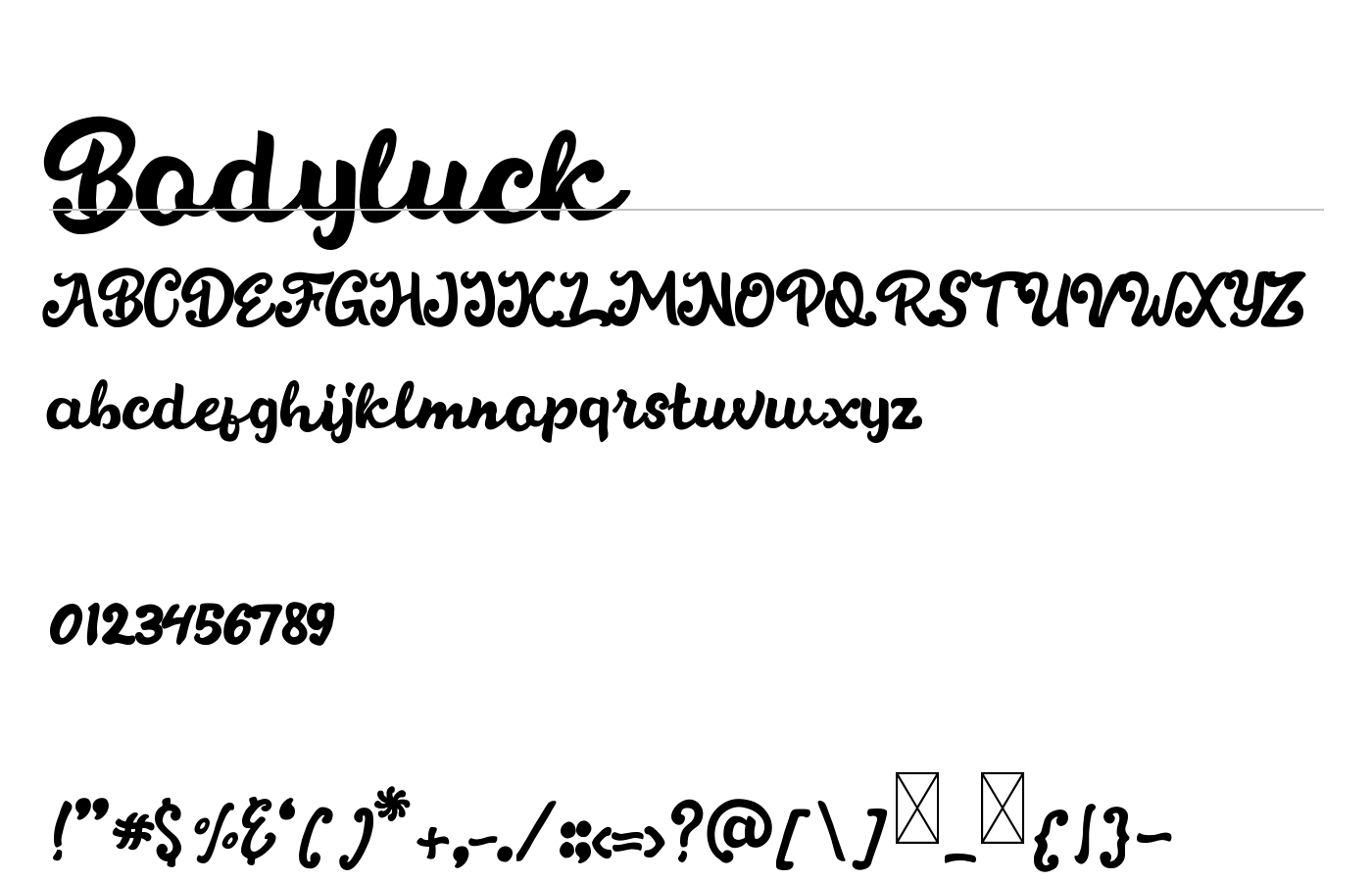
Bodyluck is a lively and bold script font with rounded, flowing letterforms that feel friendly and approachable. Its playful curves and moderate contrast give it a casual yet polished look, making it perfect for branding, creative projects, or any design that wants to convey warmth and personality. This font works well in logos, headlines, and packaging where a touch of charm and uniqueness is desired.
| Font family | Bodyluck Font |
| Designer | Ikrar Bey Khubaib |